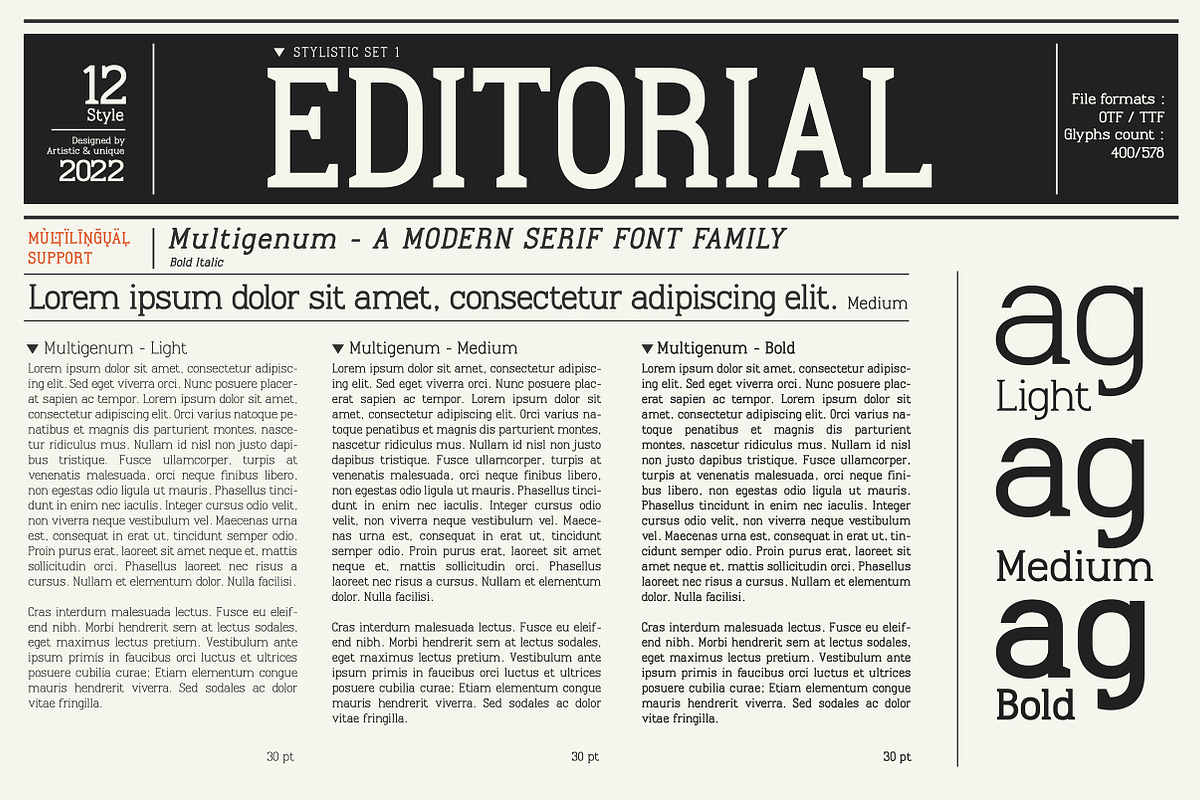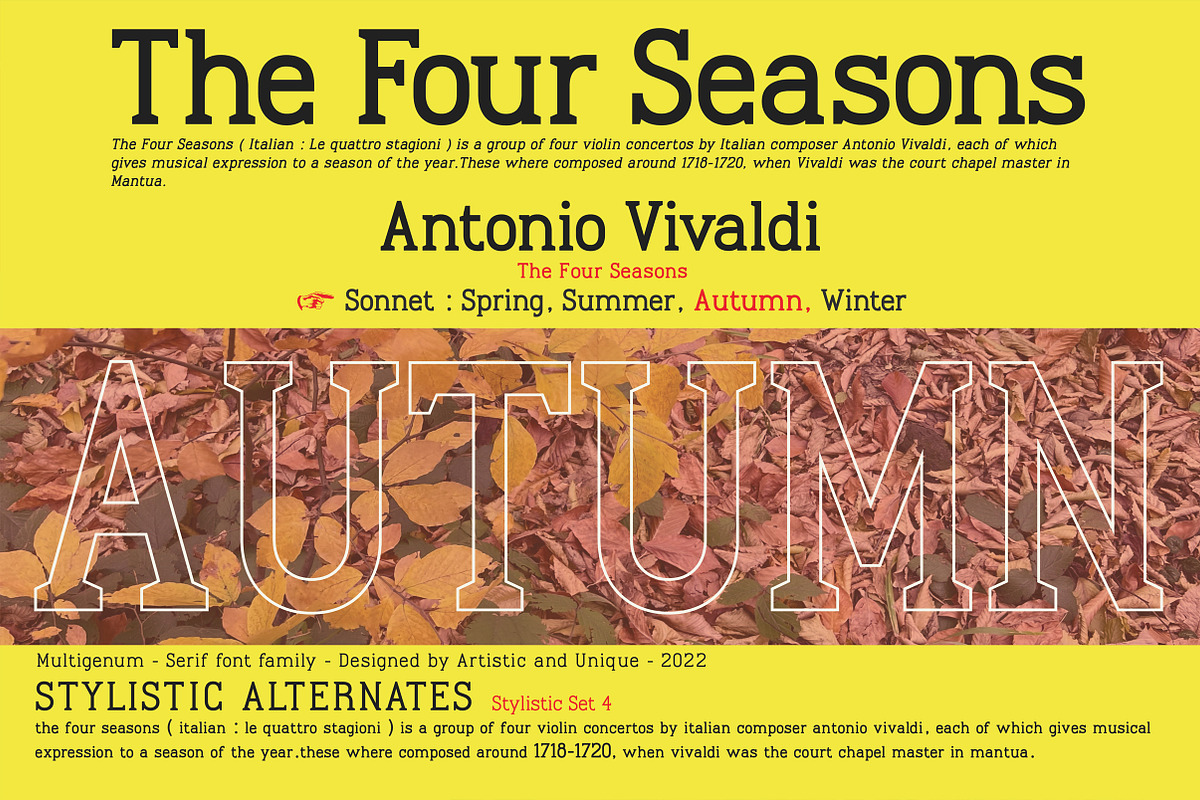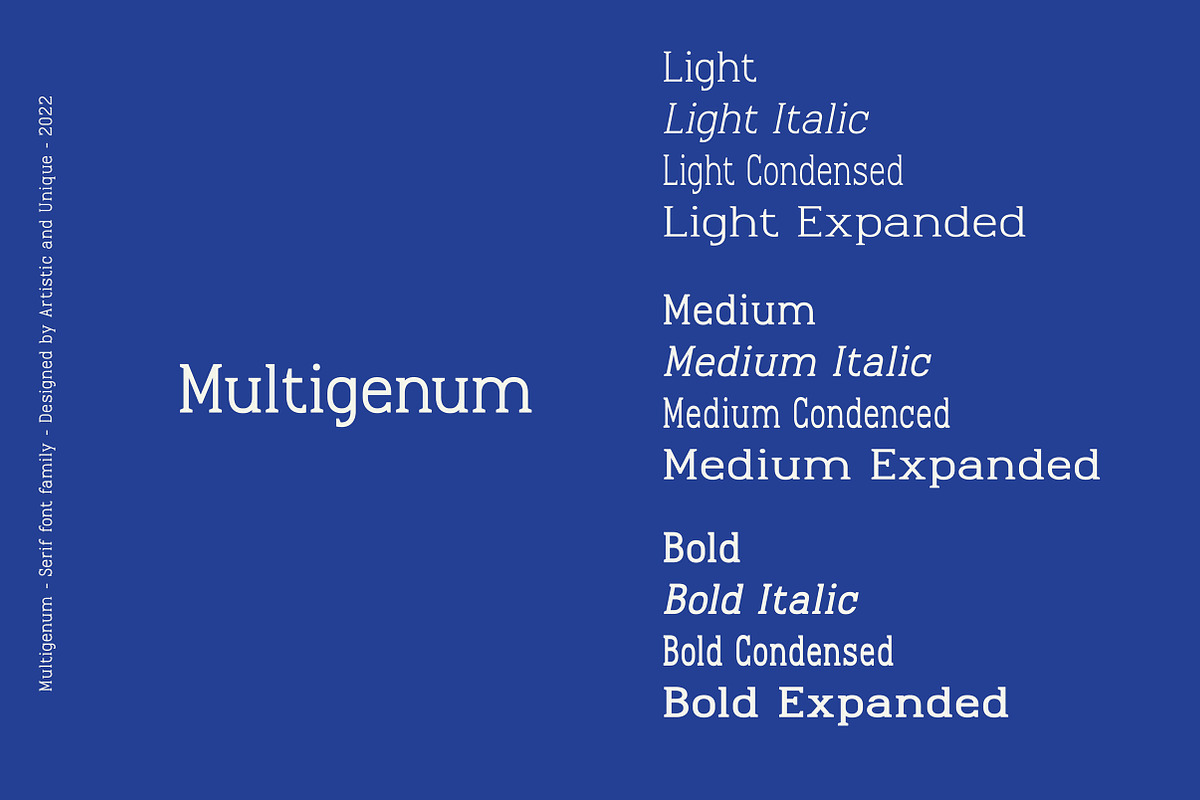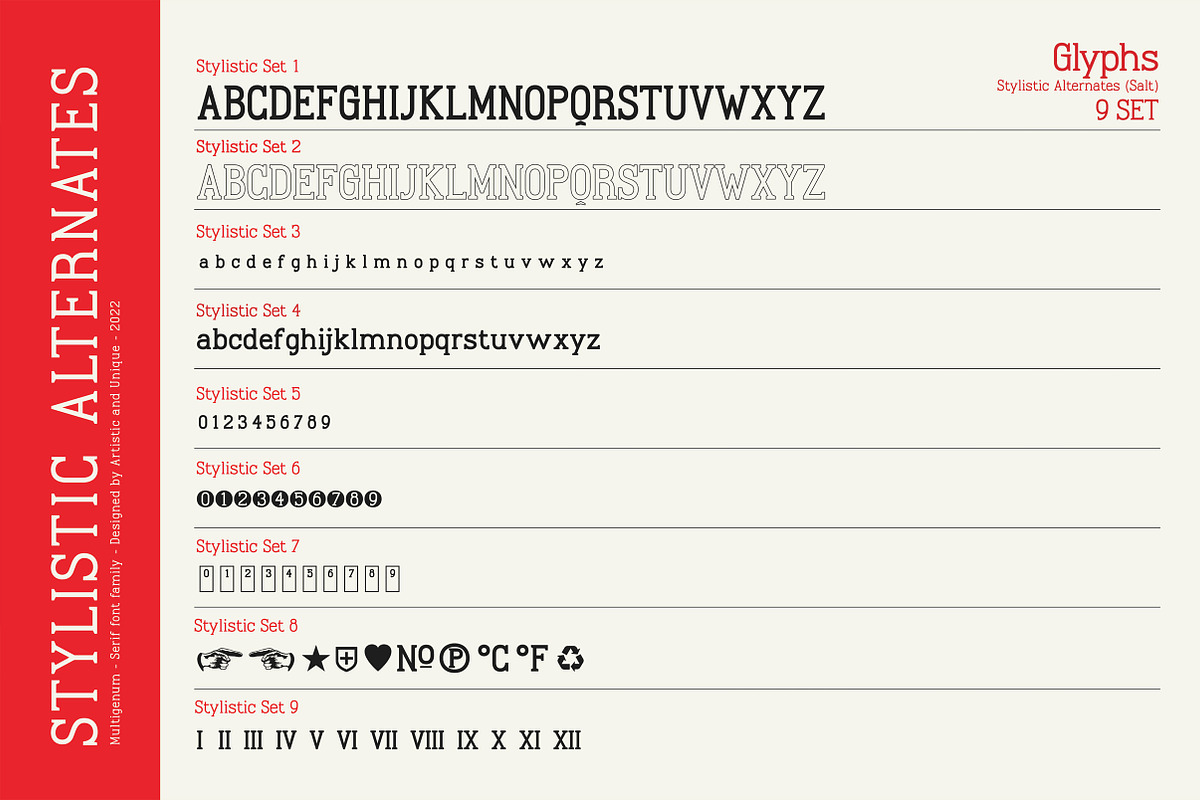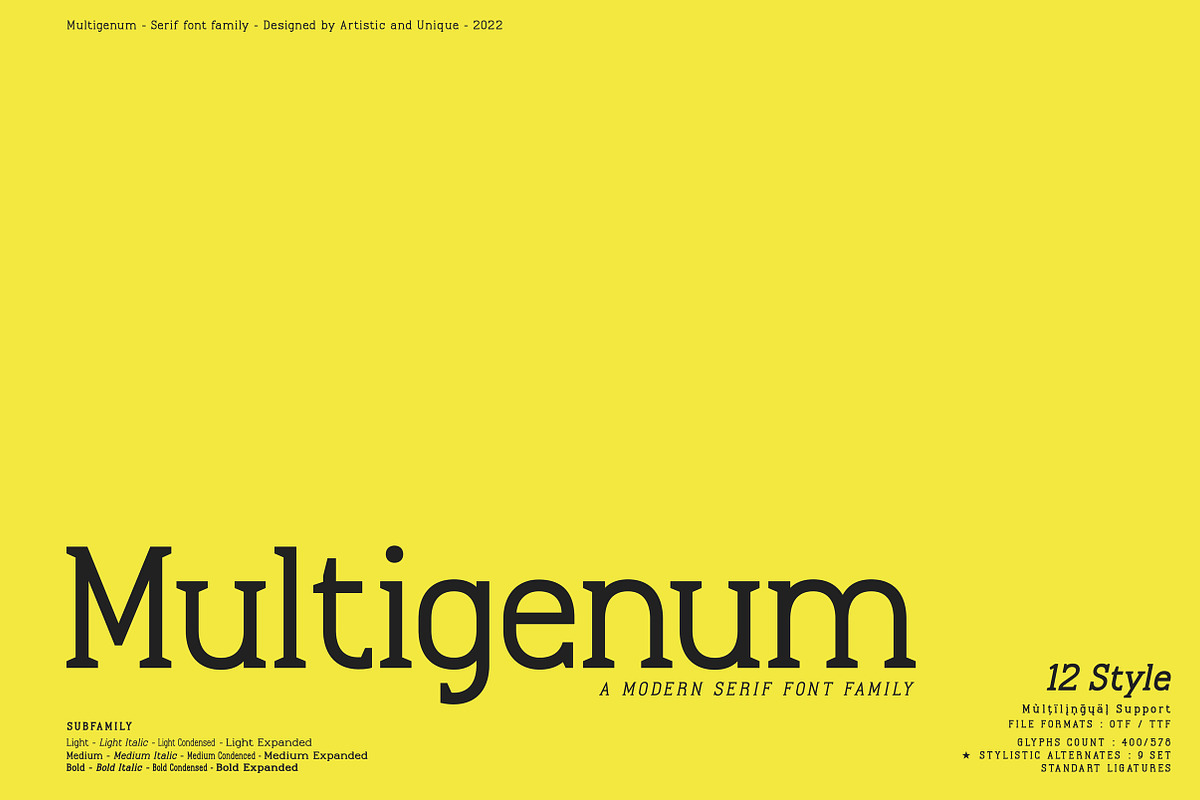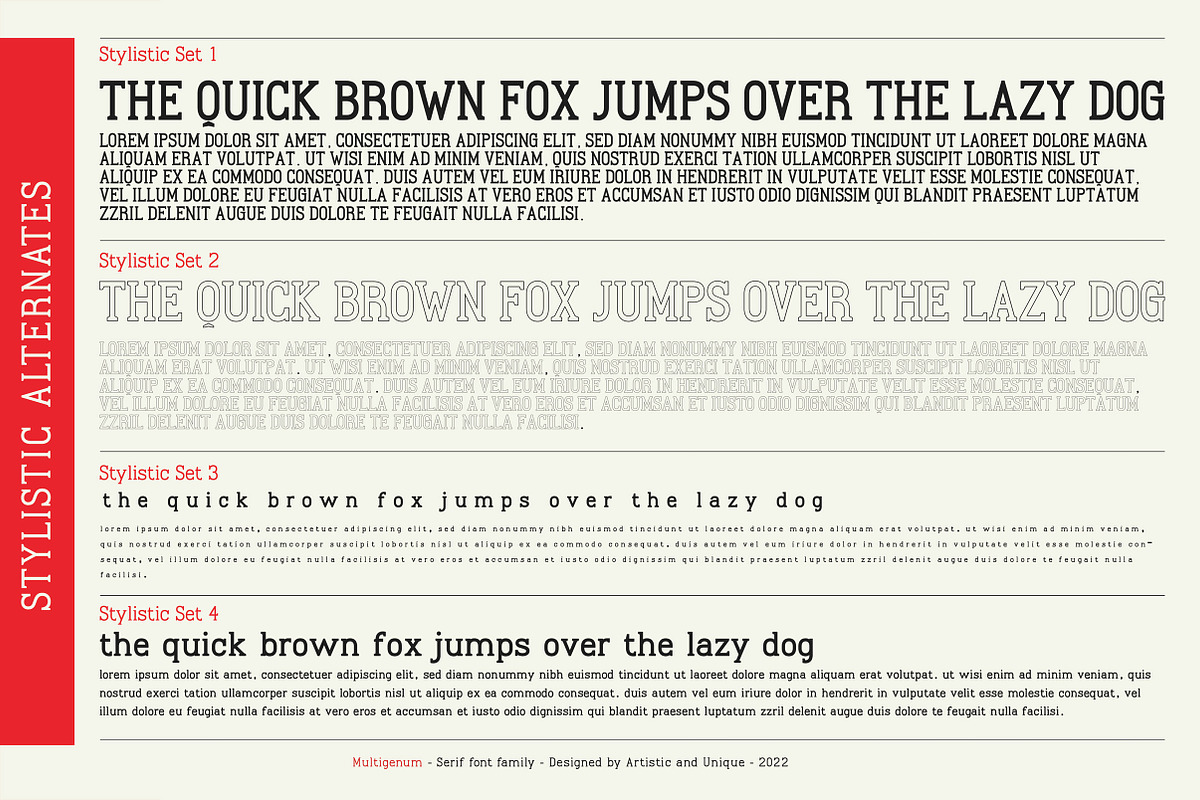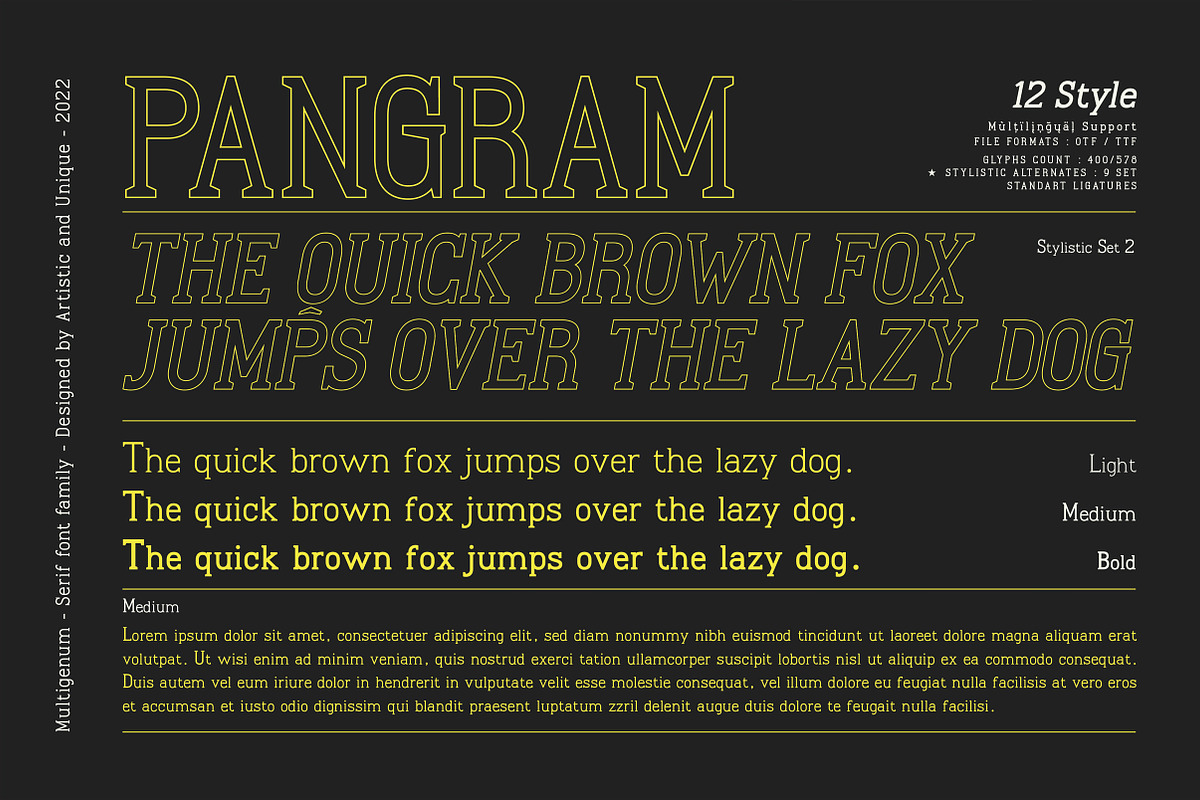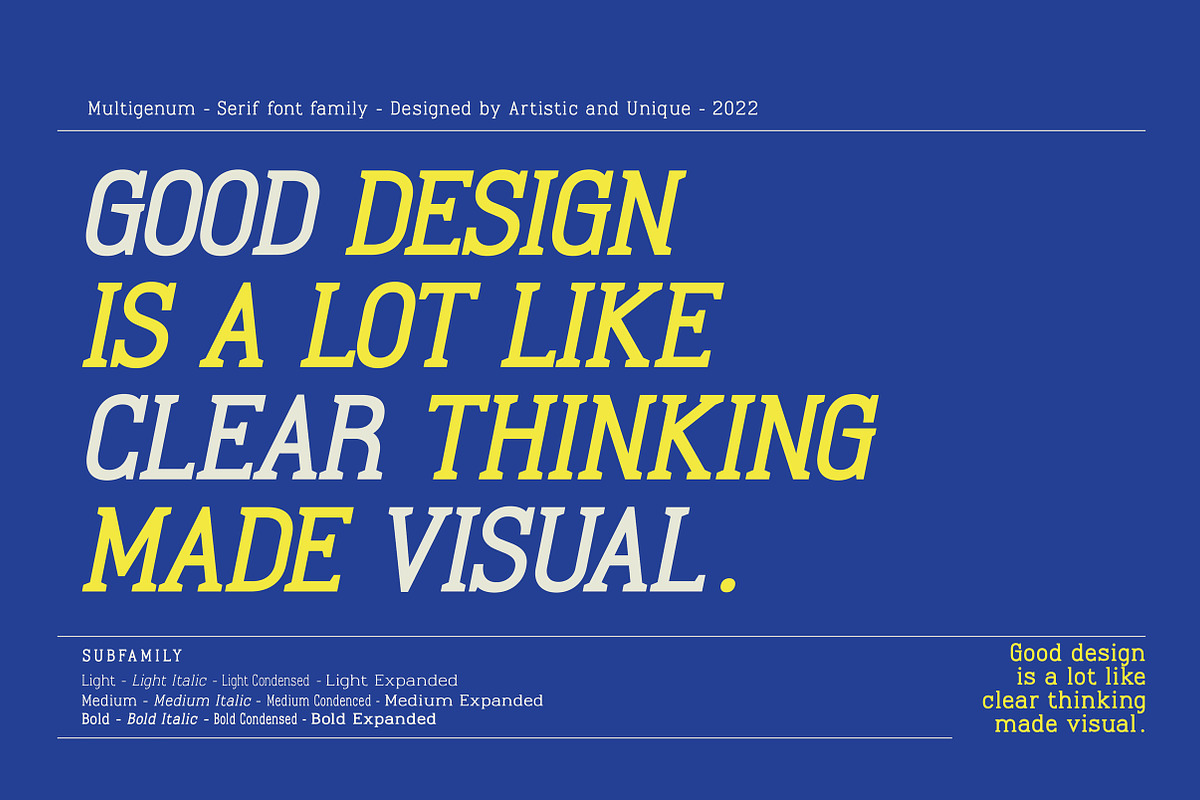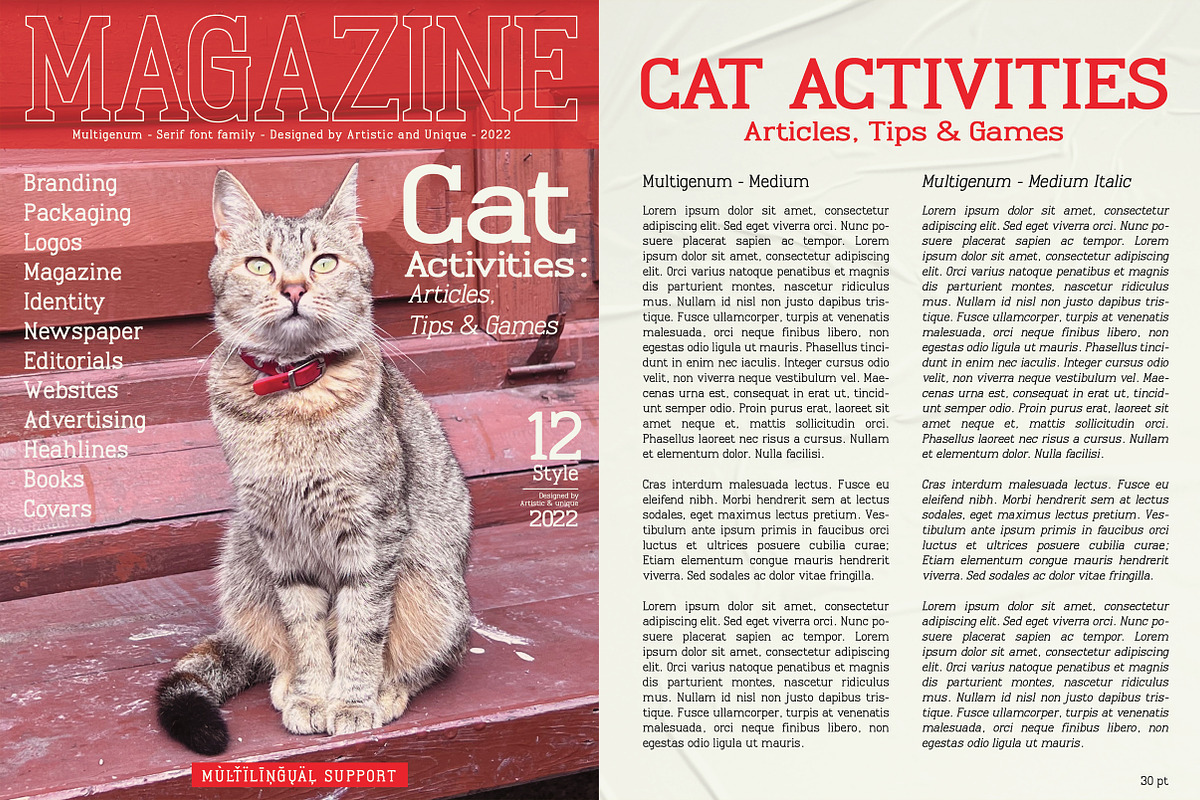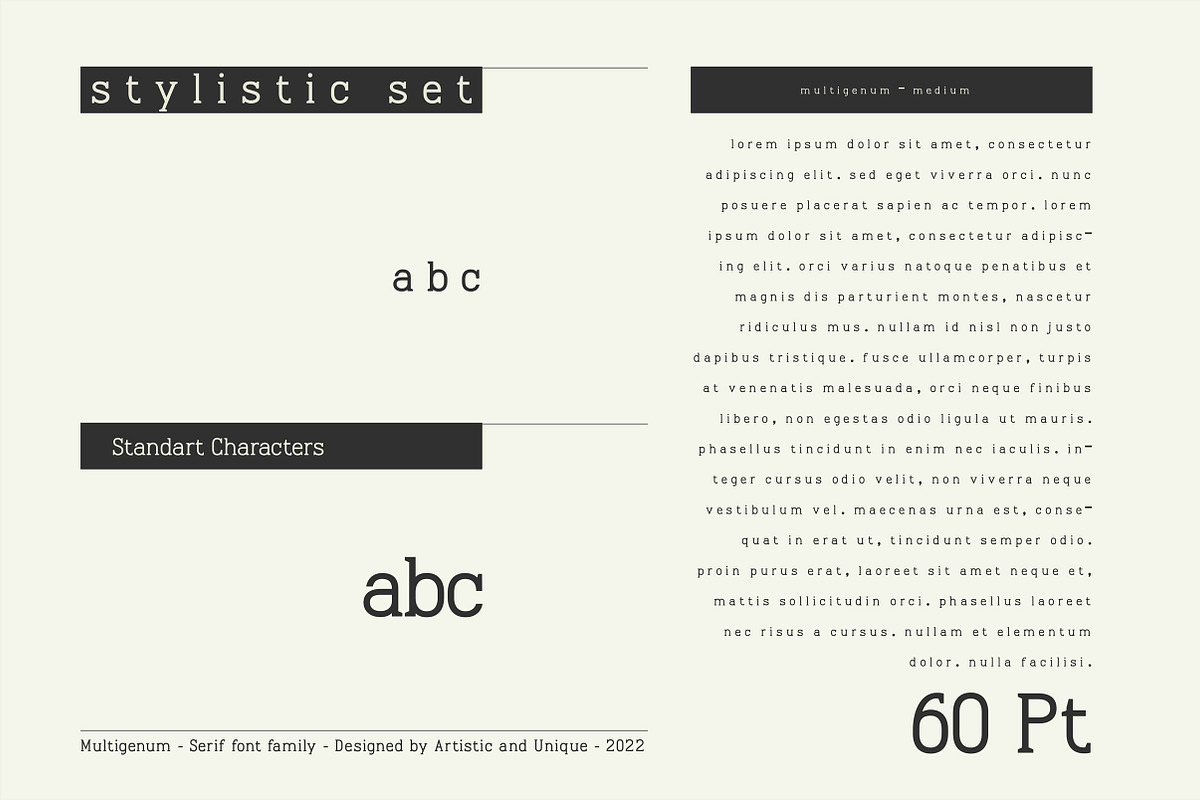
Multigenum - Serif font family
Multigenum is a rich and powerful serif font family that can be effective in the development of your projects with different alternative type designs ( It has 9 different stylistic sets.) and multilingual options.
Alternative styles and symbols are just like different instruments in a symphony orchestra. When these instruments come together, we encounter the richness of polyphony.
The Multigenum serif font family offers this richness to its users in a powerful way and can play an effective role in the development of your projects.
Great for books and magazines, editorials, headlines, websites, logos, branding, advertising and more.
With this font you can create your unique designs.